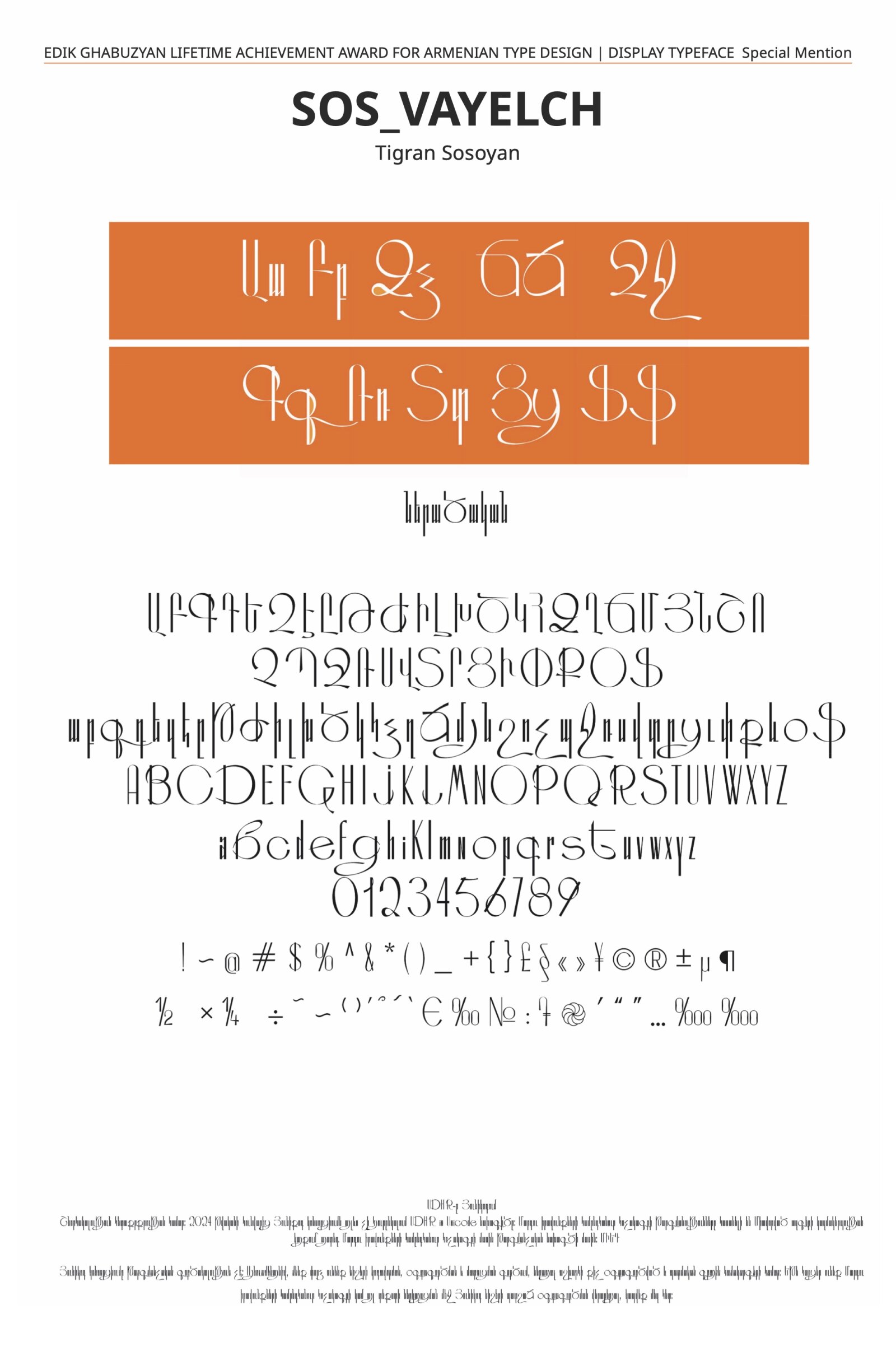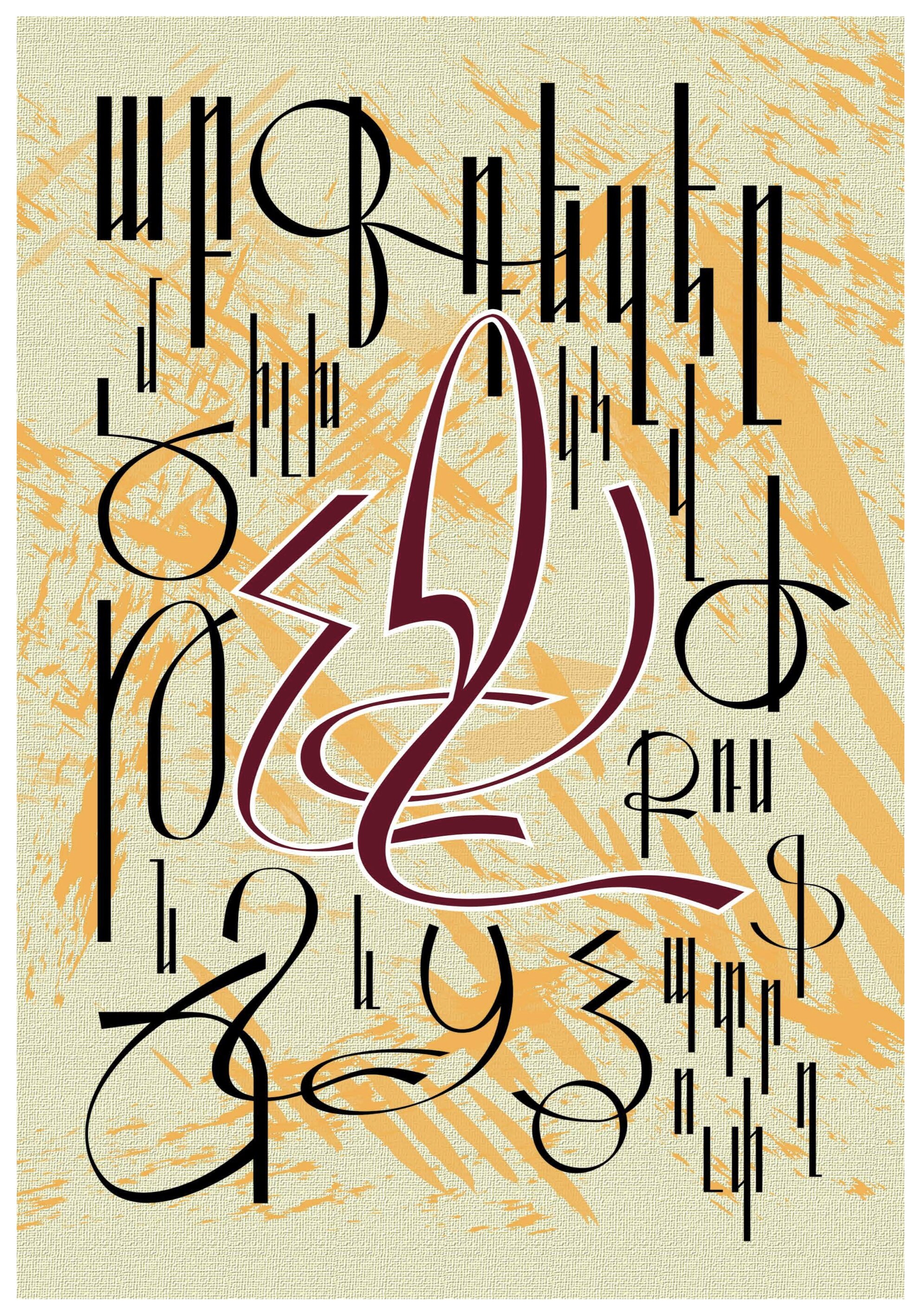
SOS_VAYELCH
by Tigran Sosoyan
Armenian Special – Ghabuzyan Lifetime Award
Original Display typeface with a very interesting solution of the letterforms and numbers, something new in designing Armenian letters. Looks nice in larger sizes. May be used for titles and posters.
SOS_VAYELCH is a display typeface, which can be used for designing posters, titles, magazine pages and so on. It was designed in 2022.